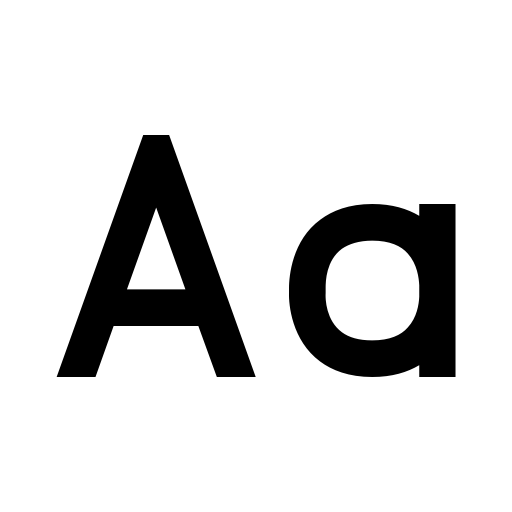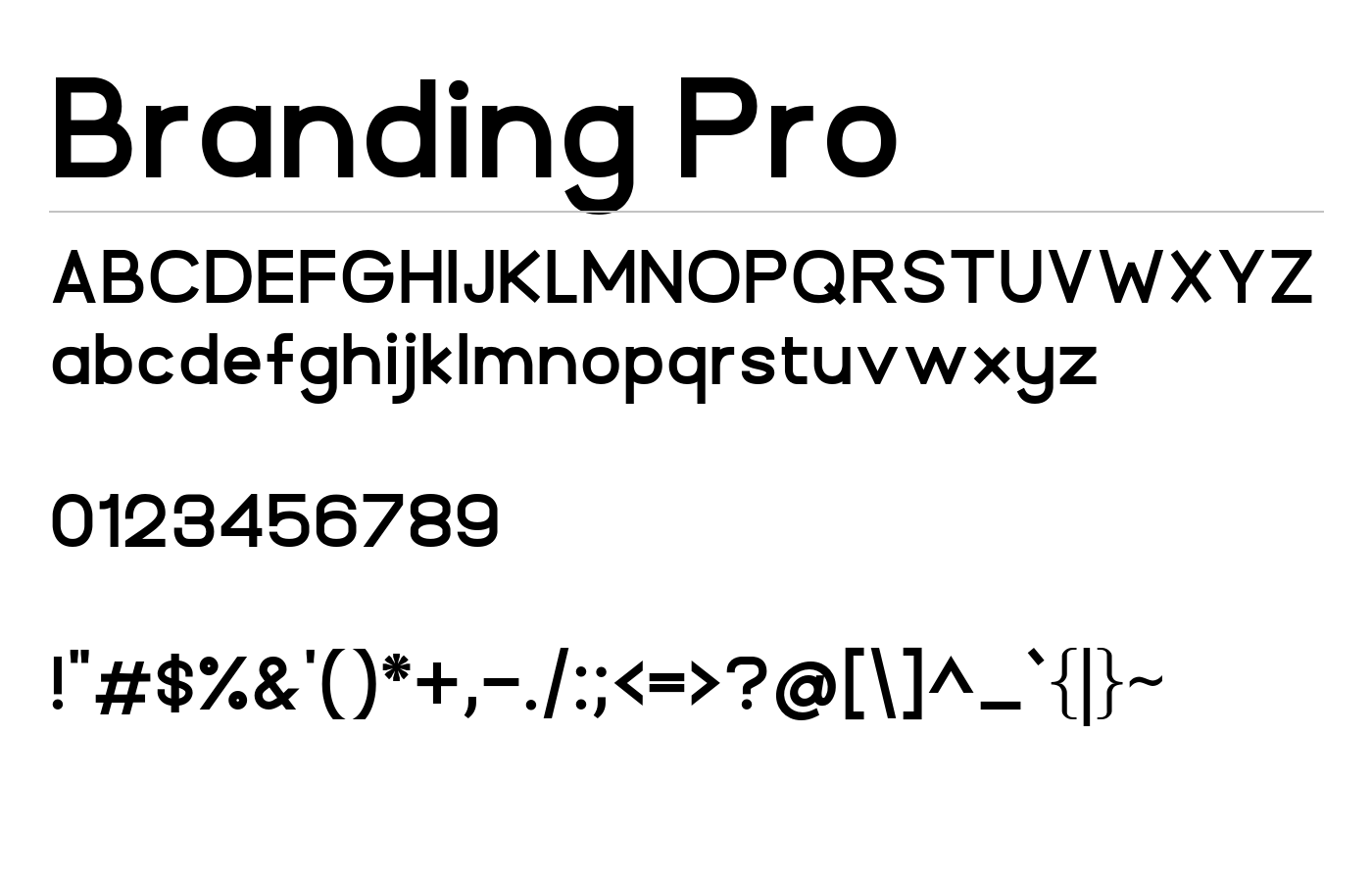
Branding Pro is a clean and modern sans serif font characterized by its geometric shapes, balanced proportions, and consistent stroke weight. Its clear, straightforward design makes it highly versatile and ideal for branding, editorial content, and digital interfaces where readability and a professional look are essential. This font’s approachable yet polished style works perfectly for contemporary logos, websites, and print materials aiming for a sleek, trustworthy appearance.
Branding Pro Font
About Branding Pro Font
| Font family | Branding Pro Font |
| Designer | Johandika Syahputra Lubis |